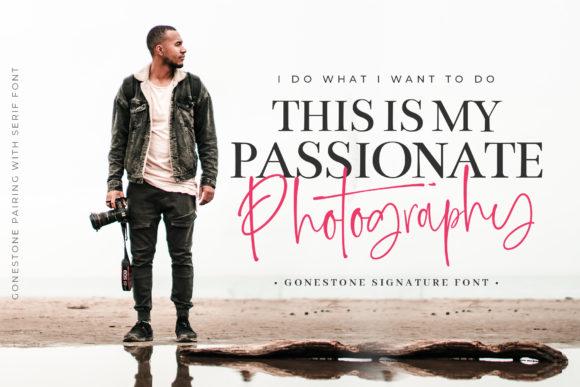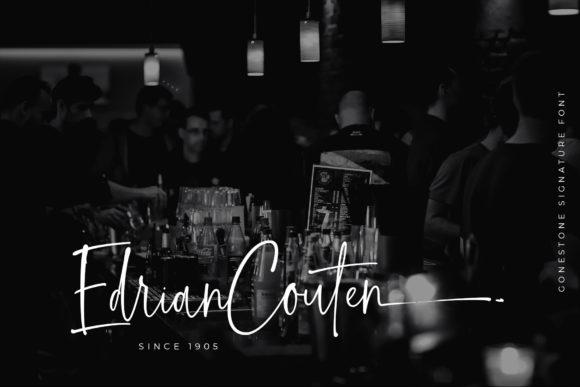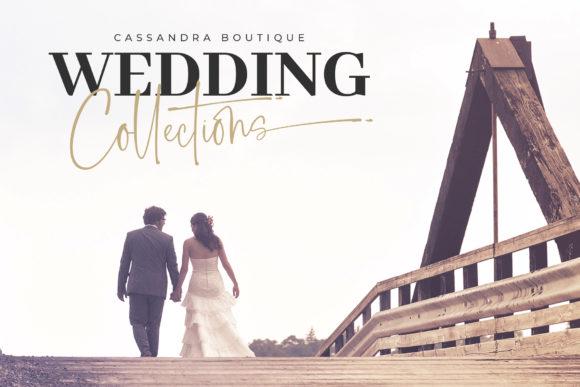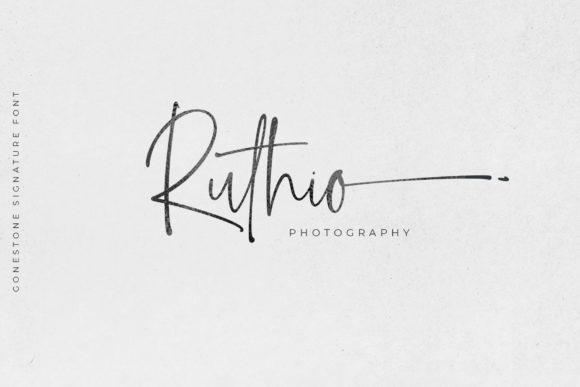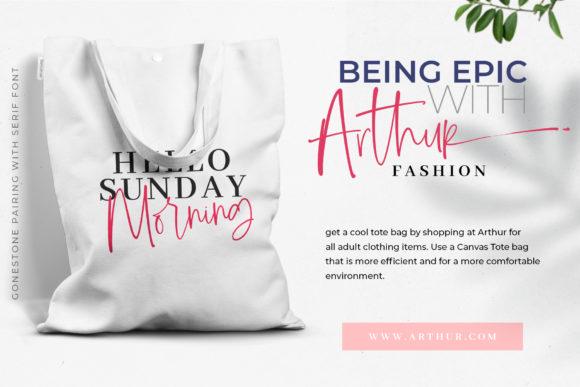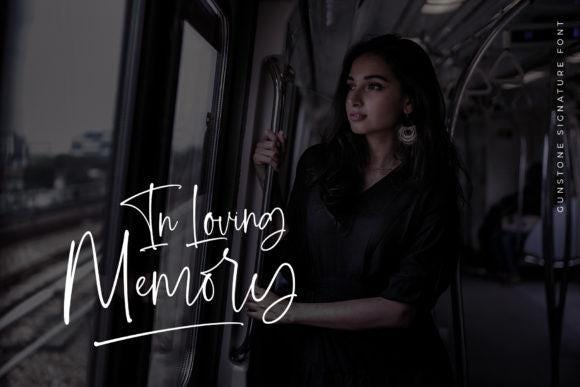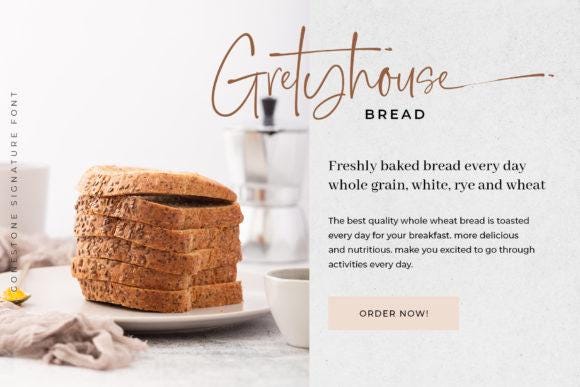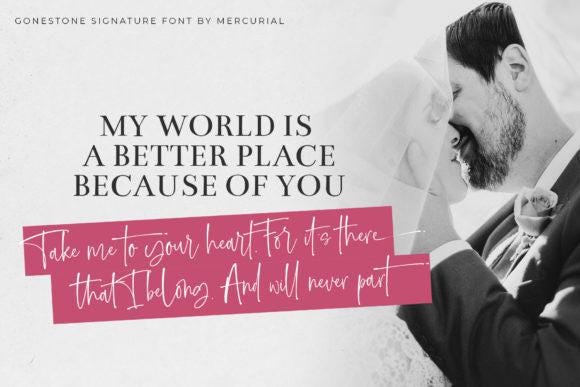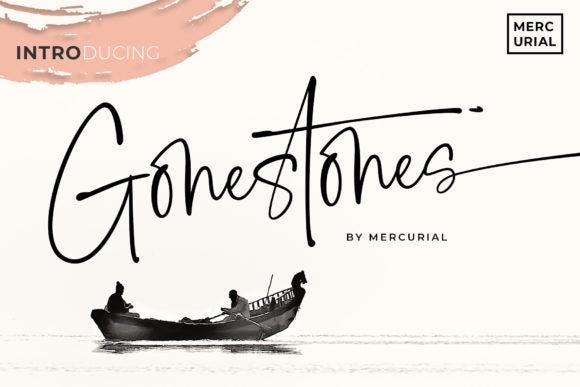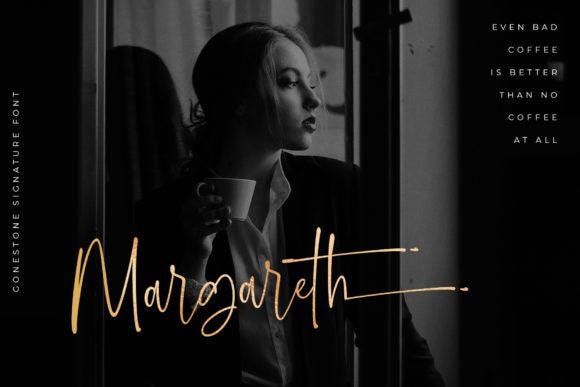
Gonestones Font
Though it bursts with raw energy, Gonestones always remains a heartfelt and authentic script, delivering any message with confidence and charm. Add this lovely freebie to your creations and take your designs to the next level!